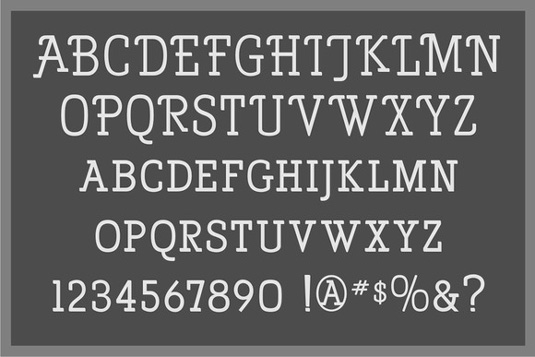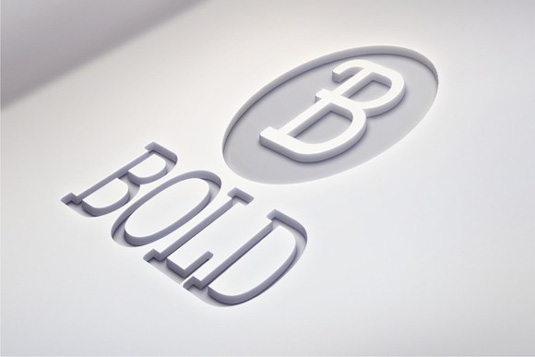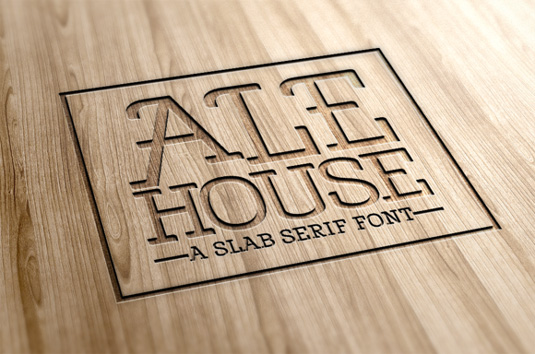
Font of the day: Ale House
Ale House by Jerry Berg and Lavonne West
Ale House typeface is the result of a collaboration between designers Jerry Berg and Lavonne West. Stylish serifs and a contemporary design makes this slab serif great for logos and branding, as well as display and copy purposes.